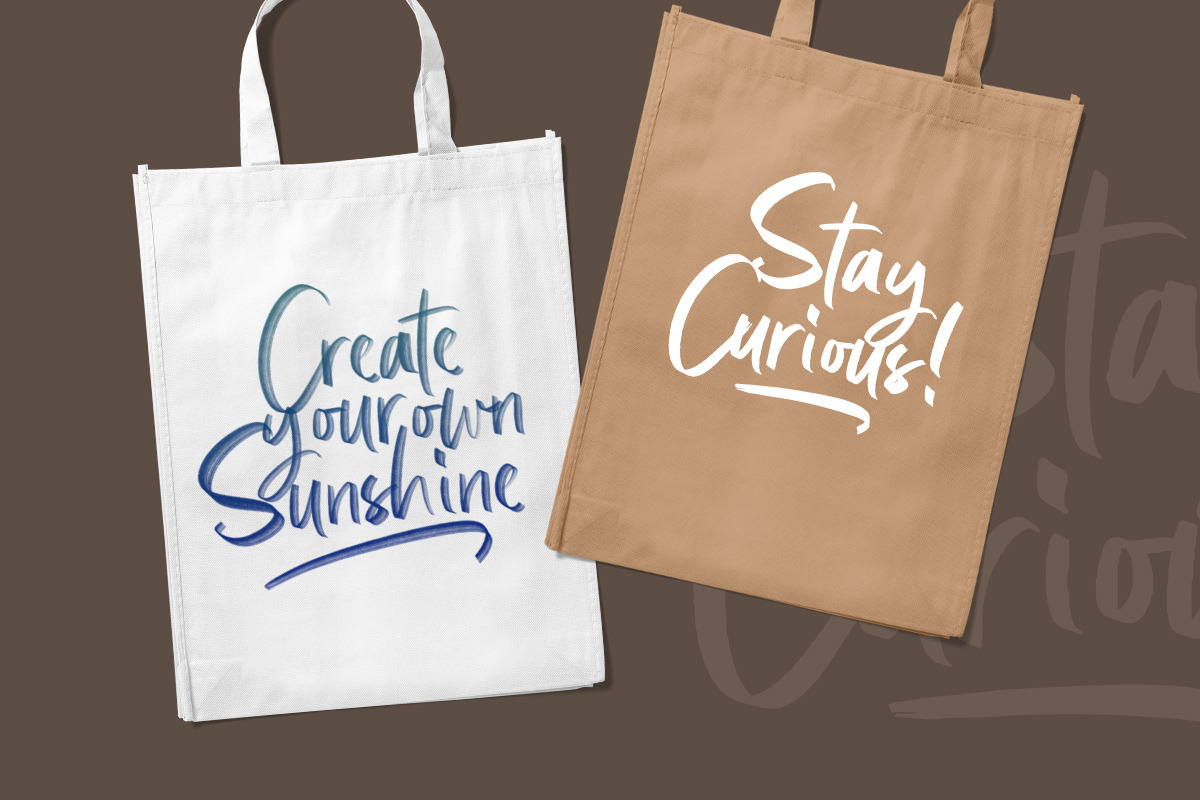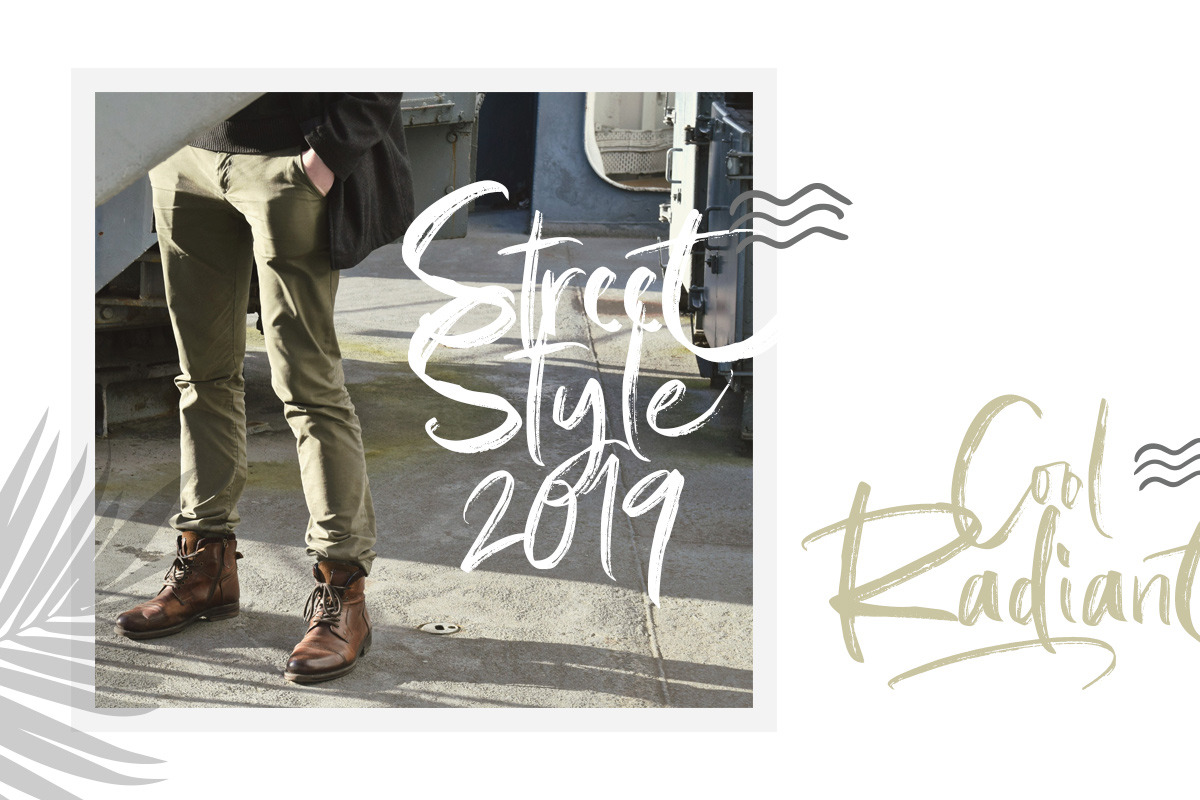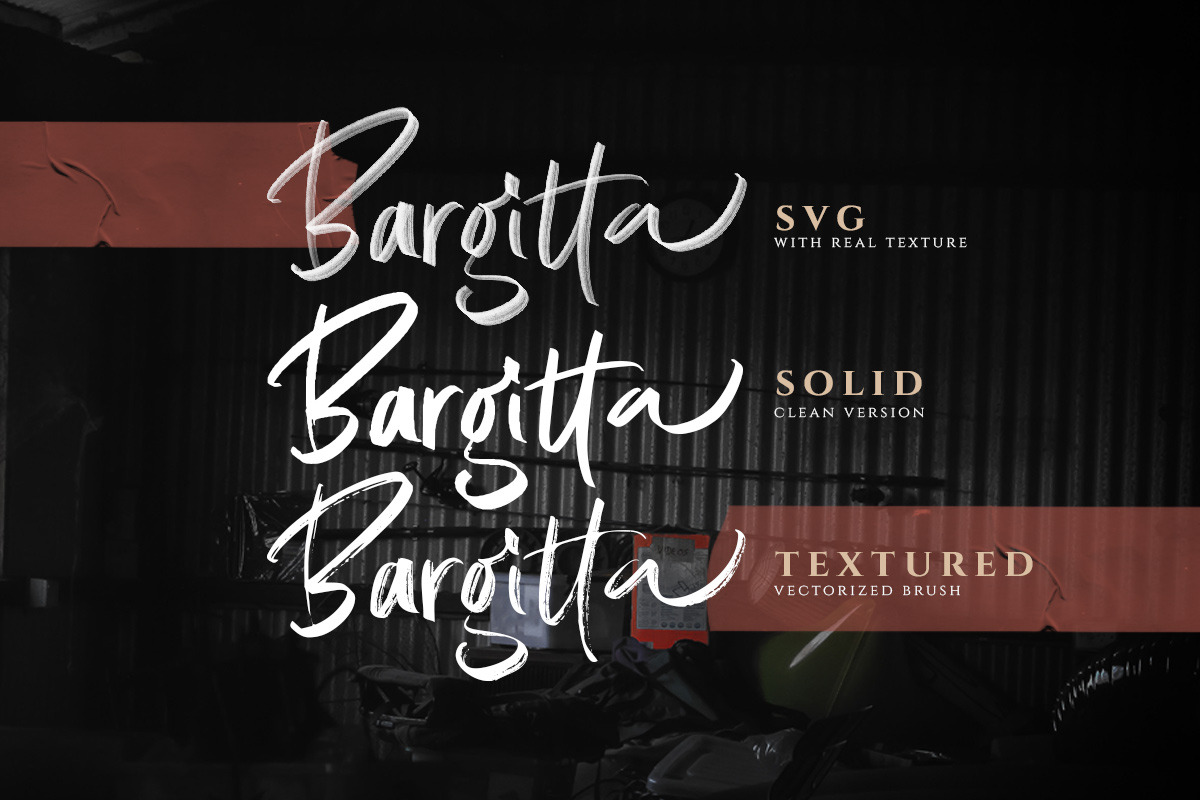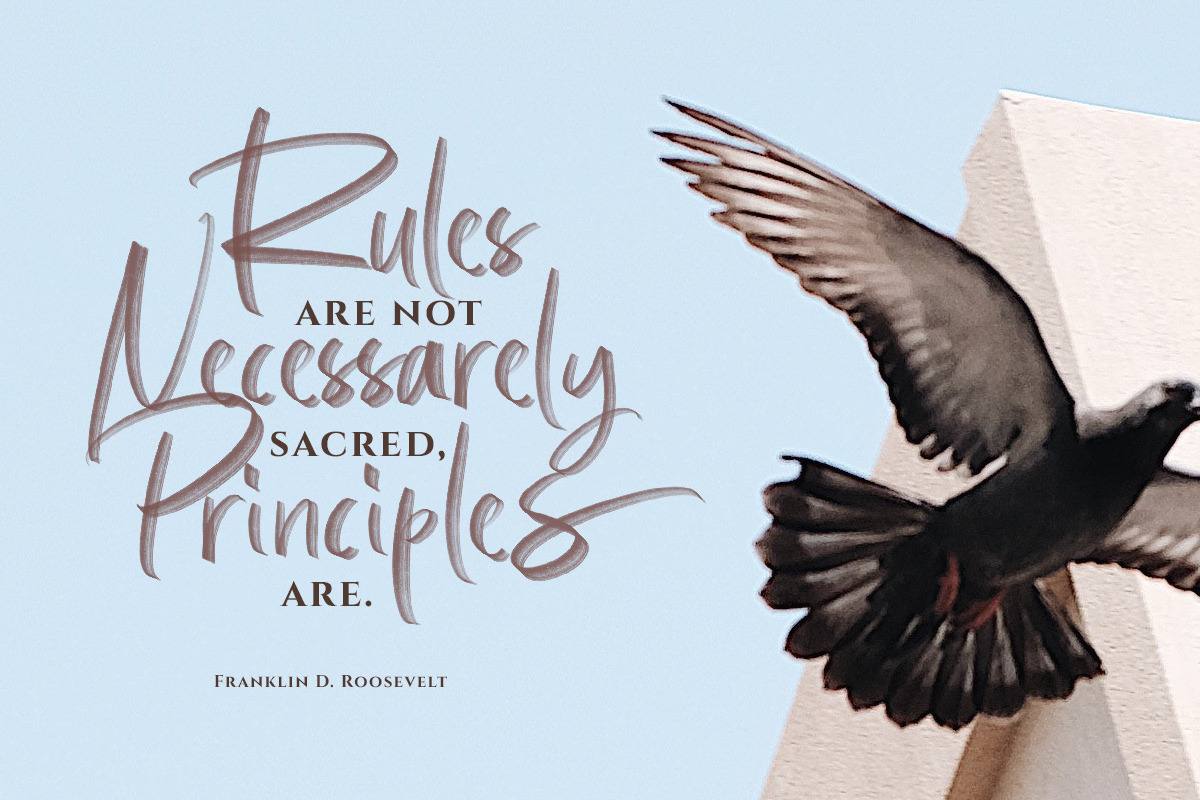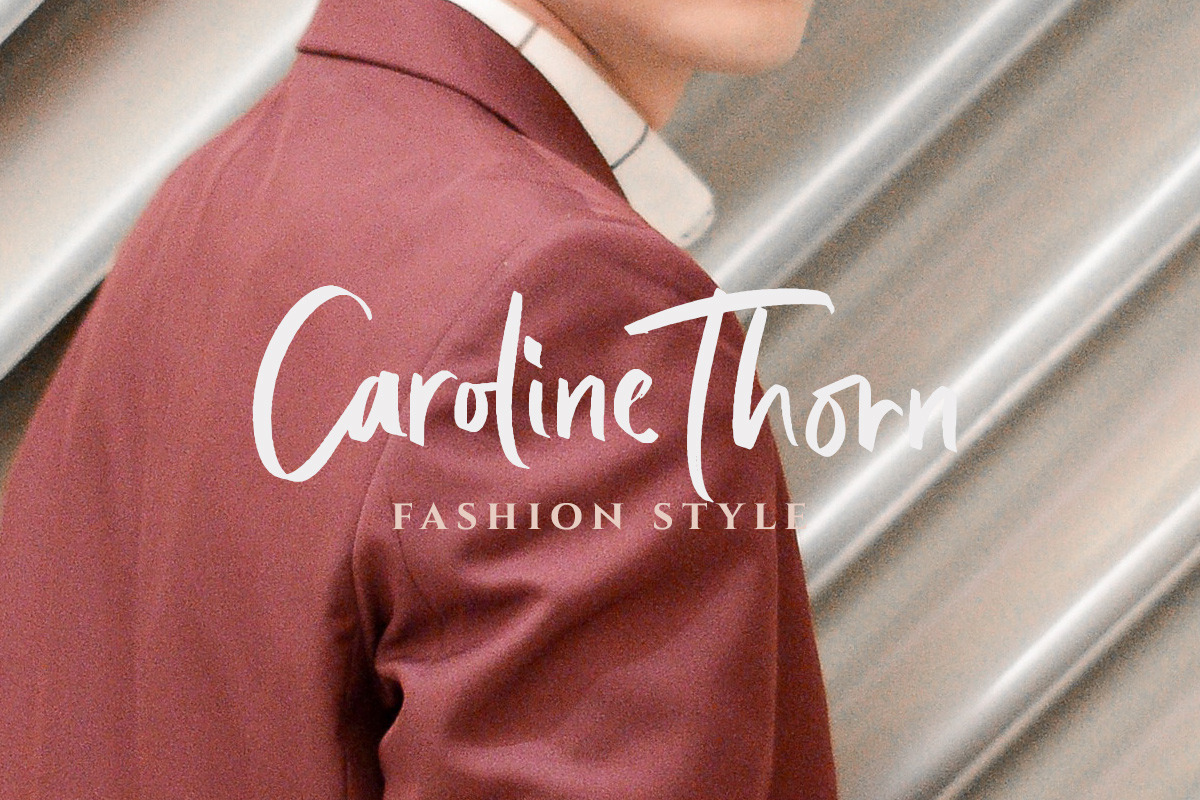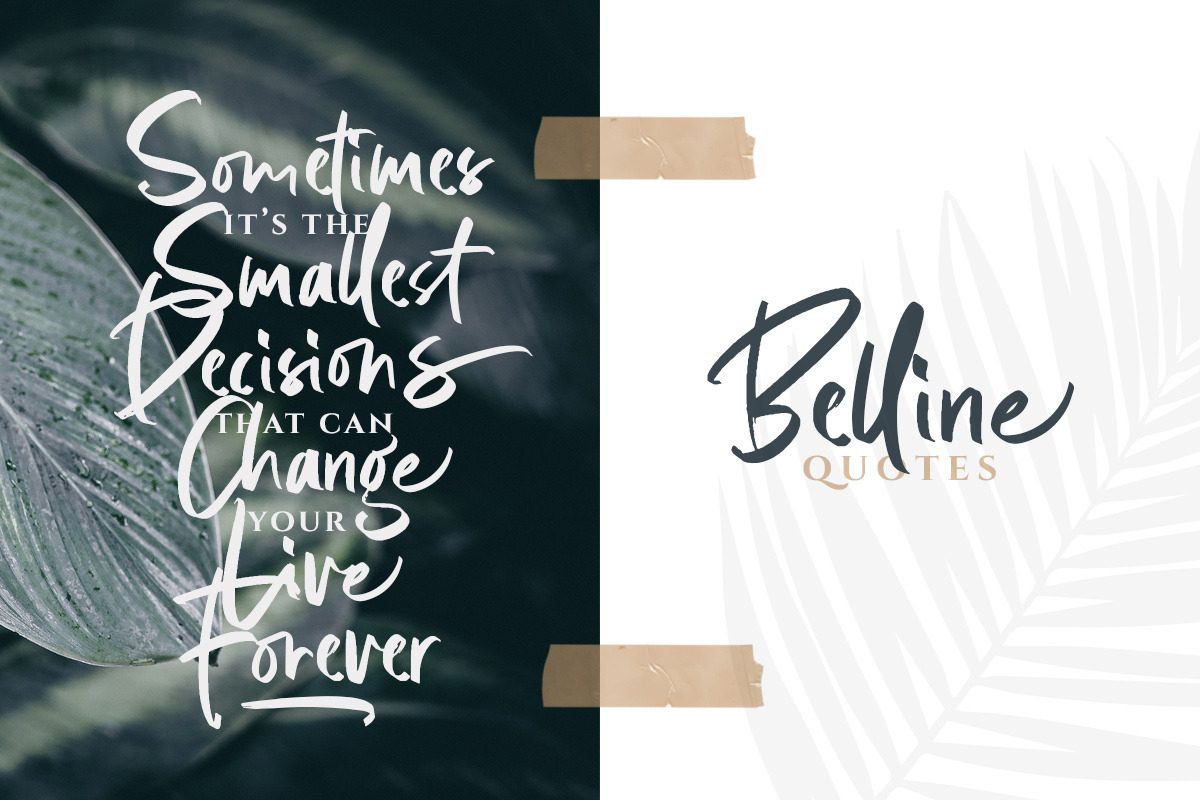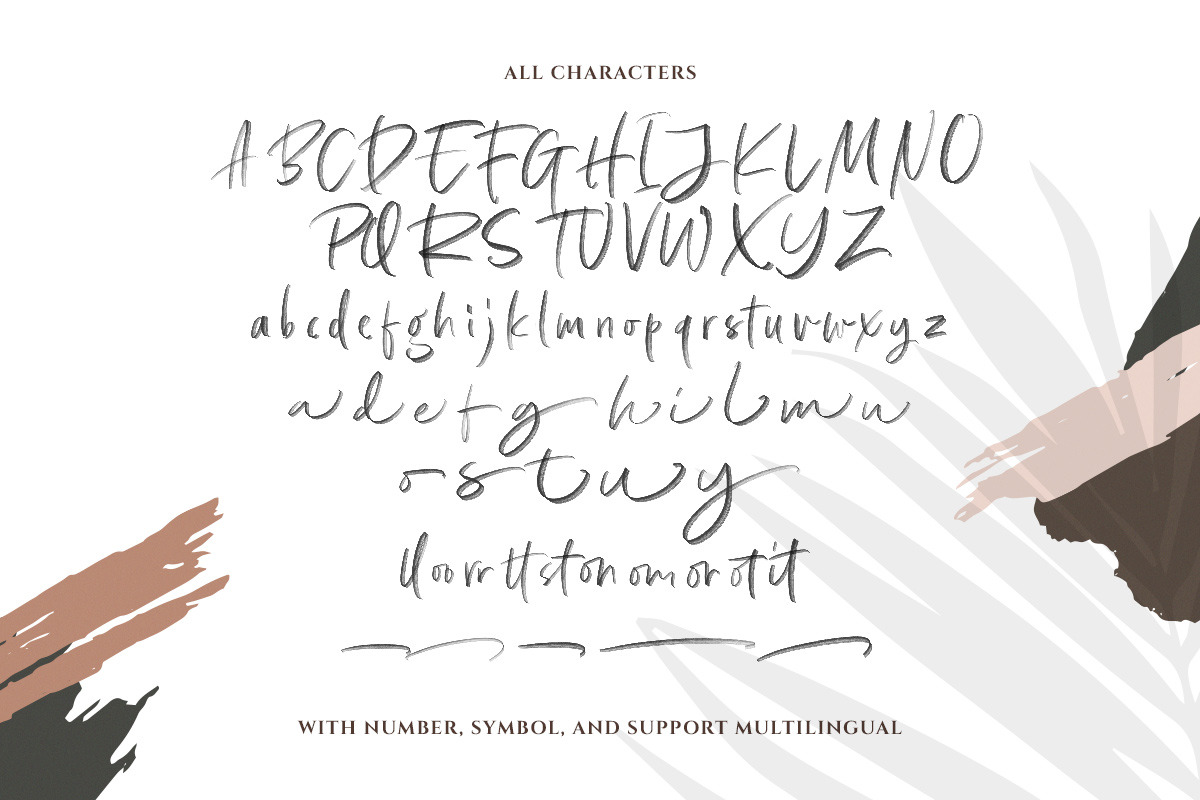
Bargitta Script SVG Font
Introducing a SVG font called Bargitta Script. This typeface has 3 different styles that you can use according your needs : Textured SVG, textured vector /rough, and solid. It has very nice look, very suitable for corporate branding, logo, document, social media design, presentation, print design, web, etc. This typeface is comes in uppercase, lowercase, punctuation, symbols, numerals, stylistic set alternate, ligatures, etc also support multilingual.
Bargitta Script SVG Font by Letterhend Studio fits naturally into Branding, posters, packaging, typography.